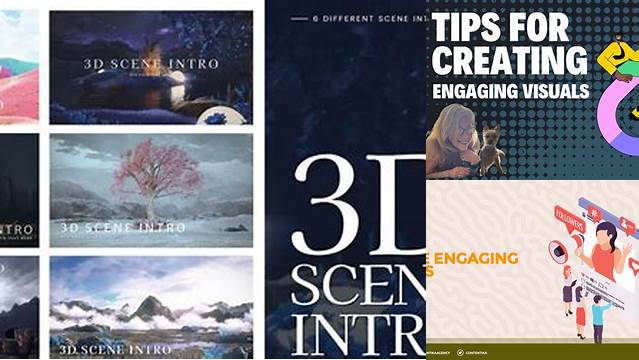
Best Fonts For Intro Videos: Engaging Typography Guide
Hey guys! Ever wondered how to make your intro videos pop? It's all about the fonts! Choosing the right fonts for intro videos can seriously level up your content. Think about it: the first few seconds are crucial, and your font plays a huge role in grabbing attention and setting the mood. Let's dive into the world of fonts for intro videos and see how you can make magic happen!
1. The Importance of Font Choice in Intro Videos
Okay, so why are fonts for intro videos such a big deal? Well, imagine watching a movie trailer with Comic Sans. Yeah, doesn't quite fit, does it? The right font isn't just about looking pretty; it communicates personality, tone, and professionalism. A bold, sans-serif font can scream modernity and energy, while a delicate script font might whisper elegance and sophistication. Your fonts for intro need to align with your brand and the type of content you're creating. Using the wrong font can confuse your audience and make your video look amateurish. Think of your font as the voice of your intro – it needs to be clear, engaging, and memorable. Don't underestimate the power of typography; it's a key element in creating a lasting first impression. So, before you jump into editing, take some time to explore different fonts for intro options and find the perfect match for your vision.
2. Best Sans-Serif Fonts for Modern Intros
For a sleek and contemporary vibe, sans-serif fonts for intro are your best friend. These fonts are clean, minimalist, and highly readable, making them perfect for conveying a sense of modernity and efficiency. Think of fonts for intro like Helvetica, Arial, and Futura – they're classic for a reason! But don't be afraid to experiment with newer options like Montserrat, Open Sans, or Lato. These fonts for intro offer a touch of personality while still maintaining a professional look. When choosing a sans-serif font, consider the overall aesthetic of your brand. A geometric sans-serif can add a touch of tech-savviness, while a rounded sans-serif can create a more friendly and approachable feel. Also, pay attention to the font's weight and kerning. A bolder weight can make your intro stand out, while proper kerning ensures readability and visual appeal. With the right sans-serif font, your intro can exude confidence and sophistication, setting the stage for a compelling viewing experience. Remember the fonts for intro must reflect what your video is about.
3. Serif Fonts for a Classic and Elegant Intro
If you're aiming for a more traditional and sophisticated feel, serif fonts for intro are the way to go. These fonts, characterized by their small decorative strokes (serifs) at the end of each letter, evoke a sense of history, authority, and refinement. Timeless fonts for intro choices like Times New Roman, Garamond, and Georgia are always a safe bet, but consider exploring more unique options like Playfair Display or Merriweather for a touch of personality. Serif fonts for intro are particularly well-suited for intros that require a sense of gravitas, such as documentaries, historical videos, or luxury brand promotions. When selecting a serif font, pay attention to the font's x-height (the height of lowercase letters) and contrast (the difference between thick and thin strokes). A higher x-height improves readability, while a balanced contrast ensures visual harmony. Also, consider the font's overall weight and style. A bolder weight can add emphasis, while an italic style can convey elegance and sophistication. With the right serif font, your intro can exude timeless charm and sophistication, captivating your audience from the very first frame. So make sure that fonts for intro are up to par.
4. Script Fonts for a Personal Touch
Want to add a personal and handcrafted feel to your intro? Script fonts for intro are the perfect choice. These fonts, inspired by handwriting, evoke a sense of warmth, authenticity, and creativity. From elegant calligraphy to playful brush strokes, script fonts for intro can add a unique touch to your video. However, use them sparingly! Overusing script fonts can make your intro look cluttered and difficult to read. Instead, use them for key words or phrases that you want to emphasize. Also, choose a script font that complements your overall brand aesthetic. A formal script font might be suitable for a wedding video, while a casual script font might be better for a lifestyle vlog. With the right script font, your intro can feel more personal and engaging, creating a connection with your audience. But remember fonts for intro of this type must be legible.
5. Display Fonts for Eye-Catching Intros
For intros that demand attention, display fonts for intro are the ultimate solution. These fonts are designed to be bold, expressive, and visually striking, making them perfect for grabbing your viewers' attention. Display fonts come in a wide variety of styles, from vintage-inspired serifs to futuristic sans-serifs. However, use them carefully! Display fonts are not always the most readable, so reserve them for short titles or logos. Also, choose a display font that reflects the overall tone of your video. A playful display font might be suitable for a children's video, while a sophisticated display font might be better for a business presentation. With the right display font, your intro can be unforgettable. Your choice of fonts for intro matters.
6. Pairing Fonts for a Professional Look
Combining different fonts for intro can create a dynamic and visually appealing intro. However, it's important to do it correctly. Choose two fonts that complement each other. A classic pairing is a sans-serif font for the heading and a serif font for the body text. You can also pair a bold display font with a simple sans-serif font. Make sure that the two fonts have different styles and weights. This will create a contrast and make your intro more visually interesting. Also, limit yourself to two or three fonts. Using too many fonts can make your intro look cluttered and unprofessional. With the right font pairing, your intro can look polished and professional. Don't use just any fonts for intro, be strategic.
7. Considering Readability and Legibility
No matter how stylish a font may be, readability and legibility are crucial. Readability refers to how easily the text can be read in a block, while legibility refers to how easily individual letters can be distinguished. Choose fonts for intro that are clear and easy to read, even at small sizes. Avoid fonts with overly ornate details or unusual letterforms. Also, pay attention to the font's kerning (the spacing between letters) and leading (the spacing between lines). Proper kerning and leading can greatly improve readability. Test your intro on different devices and screen sizes to make sure that the text is still legible. A stylish font is useless if your audience can't read it! Thus, fonts for intro must be readable.
8. Font Size and Placement Tips
The size and placement of your fonts for intro can greatly impact its effectiveness. Use a font size that is large enough to be easily read on different devices, but not so large that it overwhelms the screen. Experiment with different font sizes and placements to see what works best for your intro. Also, consider the overall composition of your intro. Make sure that the text is balanced and harmonious with the other visual elements. Avoid placing text in areas where it will be obscured by other objects. With the right font size and placement, your intro can be visually appealing and easy to understand. So when choosing fonts for intro check what size suits it well.
9. Using Motion Graphics with Fonts
Animating your fonts for intro can add a dynamic and engaging touch to your video. Experiment with different motion graphics techniques, such as fading, sliding, or rotating the text. Use motion graphics to emphasize key words or phrases. Also, make sure that the motion graphics are smooth and fluid. Avoid jerky or distracting animations. With the right motion graphics, your intro can be more visually appealing and memorable. Choose fonts for intro that can do well with motion graphics.
10. Color Considerations for Intro Fonts
The color of your fonts for intro can greatly impact its effectiveness. Choose colors that contrast well with the background. Also, consider the overall color palette of your video. Make sure that the font colors are harmonious with the other visual elements. Avoid using too many colors, as this can make your intro look cluttered and distracting. With the right color choices, your intro can be more visually appealing and engaging. So make sure fonts for intro have good color combination.
11. Free vs. Paid Fonts: What's the Difference?
12. Top Websites for Downloading Fonts
13. Understanding Font Licensing
14. Creating Custom Fonts
15. Using Fonts to Reflect Brand Identity
16. Fonts for Different Video Genres (Gaming, Vlogs, Tutorials)
17. Font Trends in 2024
18. Avoiding Common Font Mistakes
19. Font Psychology: How Fonts Affect Viewers
20. Accessibility Considerations for Fonts
21. Font File Formats (OTF, TTF, WOFF)
22. Embedding Fonts in Videos
23. Optimizing Fonts for Web Use
24. Font Management Tips
25. Using Fonts in Intro Templates
26. Integrating Fonts with Video Editing Software
27. Fonts for International Audiences (Multilingual Support)
28. The Future of Font Design
29. Advanced Typography Techniques
30. Measuring Font Performance in Intros
I hope this helps you guys create awesome intros! Remember, choosing the right fonts for intro videos is all about experimentation and finding what works best for your brand and content. Good luck, and happy creating!